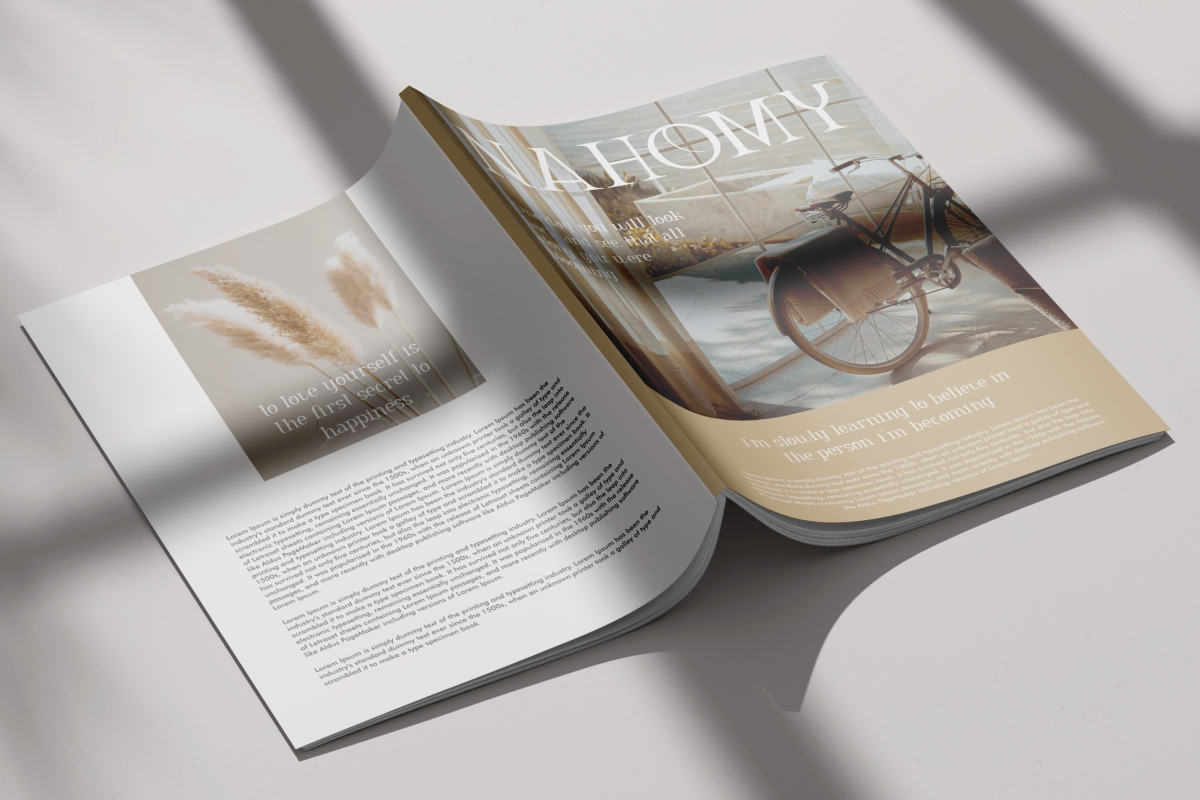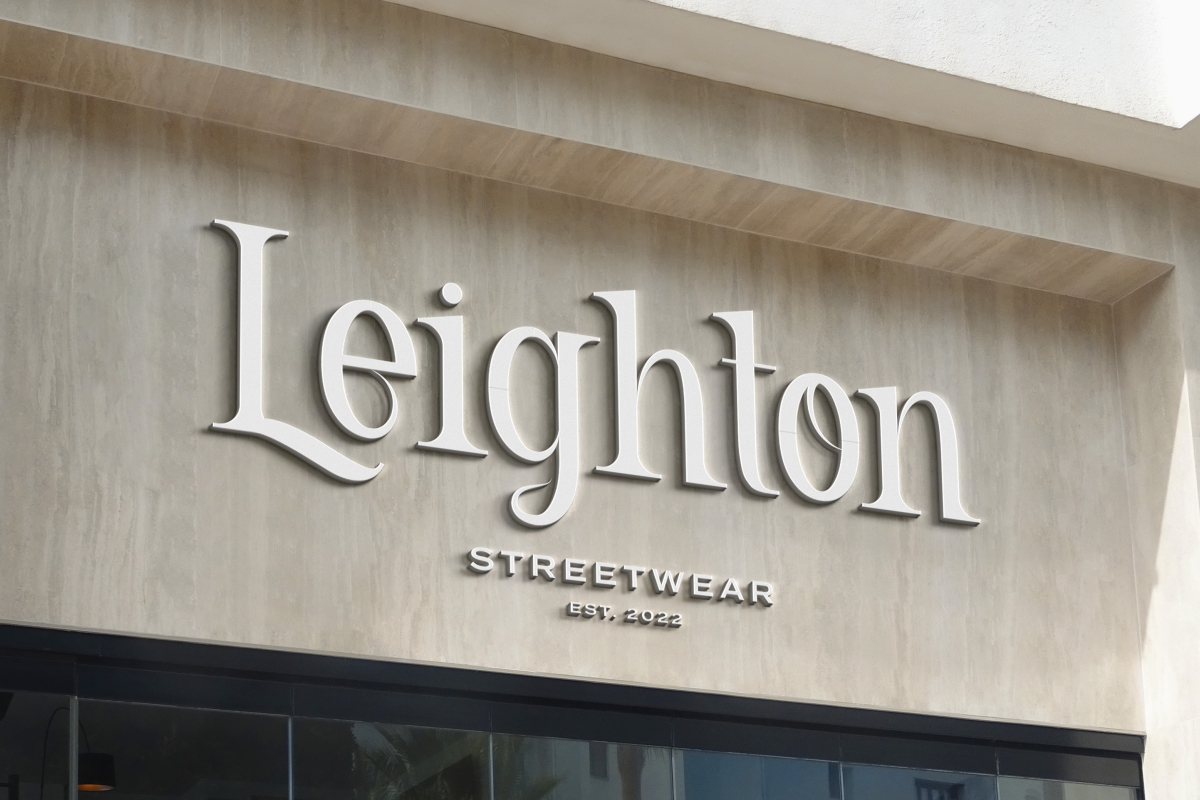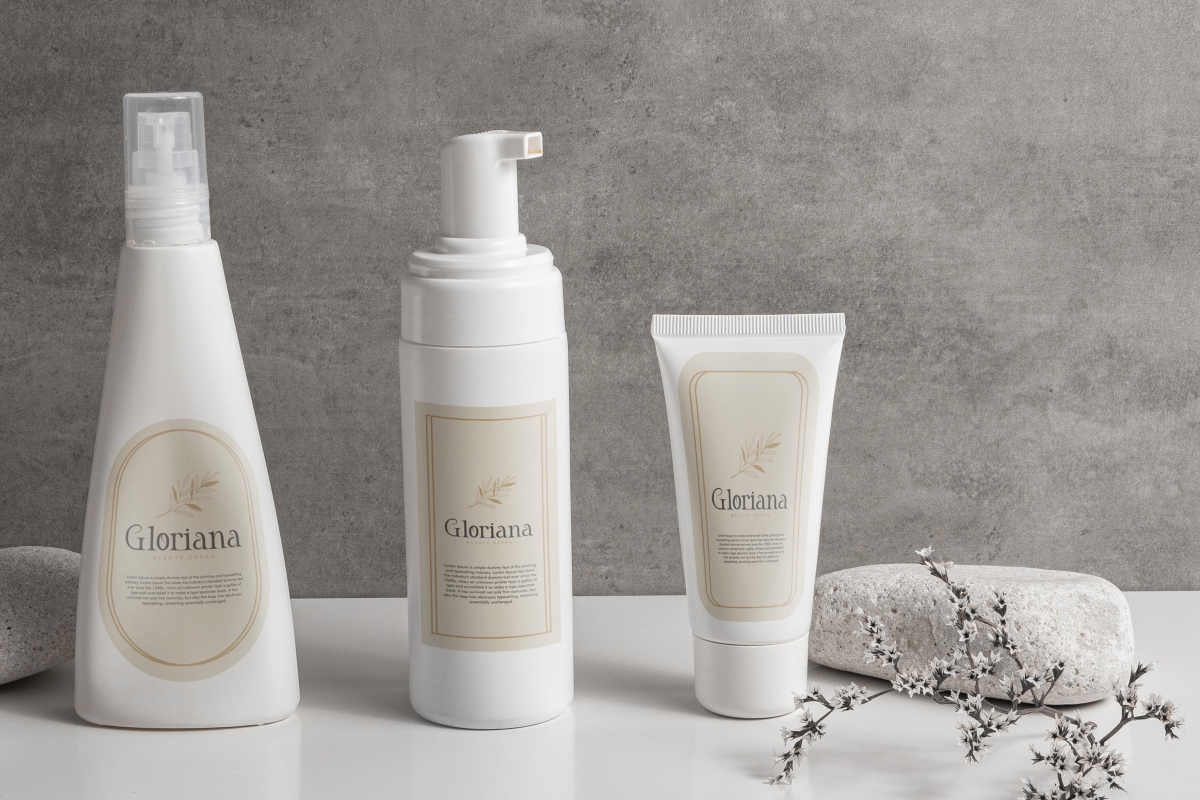
Random Theory Font
Random Theory Serif Font
It’s a stylish serif font that has curly lines on some of the letters that make them stand out. This font will be suitable for many industries such as, clothing, cosmetic, fashion, florist, furniture, jewelry, real estate, restaurant, spa salon, etc.